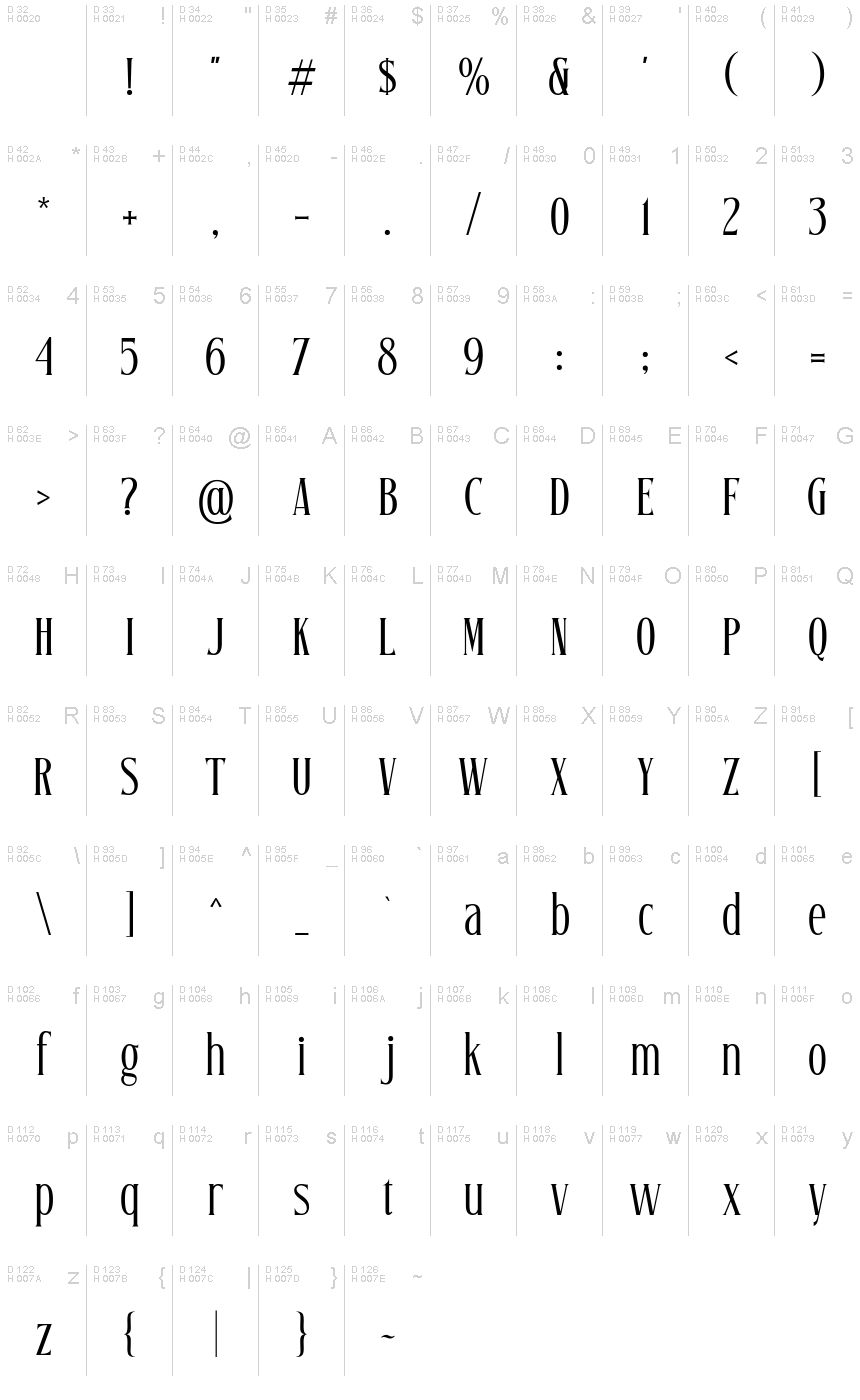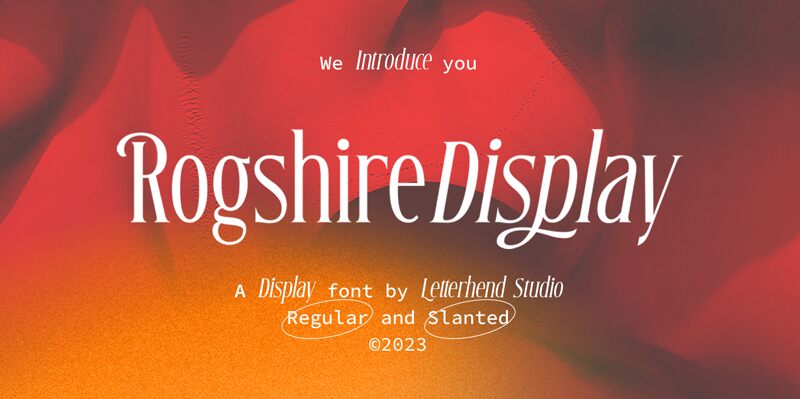
Rogshire font by Letterhend Studio captures the essence of refined elegance within its sophisticated design. Its classic and professional style brings a timeless charm to every project, making it an indispensable addition to your typography toolkit. This elegant serif has that degree of beauty you expect from top-class serif typefaces. Exceptional projects require something unique; this free font is the perfect tool for this purpose.
Create elegant magazine covers, editorial layouts, product packaging designs, restaurant menu headers, book covers graphics, branding elements or visual identity purposes.